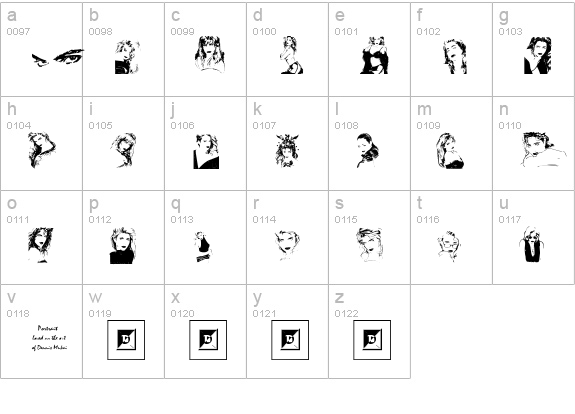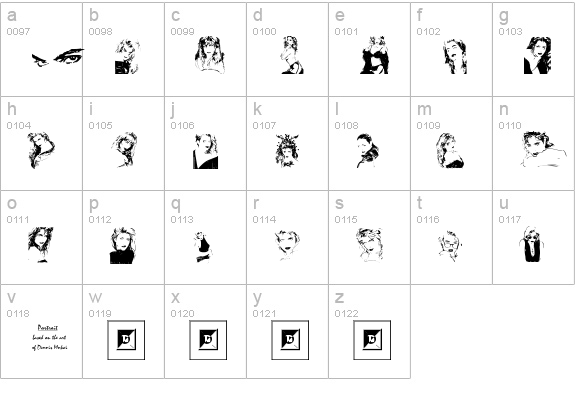
Portrait Font Details
The Portrait font exudes elegance and sophistication with its sleek and modern design. This versatile typeface is perfect for adding a touch of refinement to any project, whether it be for branding, editorial design, or invitations. With its clean lines and stylish curves, Portrait font effortlessly captures attention and makes a lasting impression. The best part? Portrait font is available for free download at FontsMarket.com, making it accessible to all designers and creatives looking to elevate their work with a touch of class. Don't miss out on this opportunity to enhance your designs with the timeless beauty of Portrait font. Download it today and unleash your creativity!